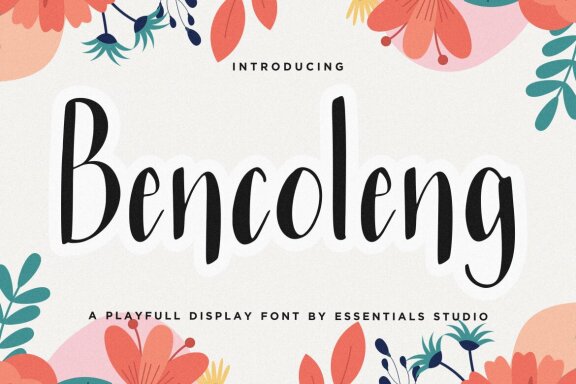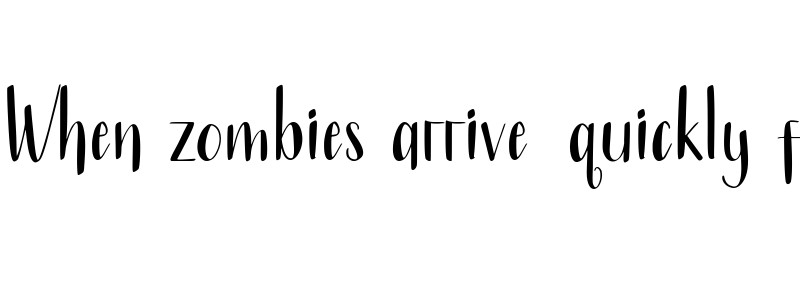
Bencoleng
ntroducing by Essentials Studio
Proudly Present, Bencoleng
Bencoleng Is a A Playfull Display Handwritten Font
Bencoleng is perfect for product packaging, branding project, megazine, social media, wedding, or just used to express words above the background.